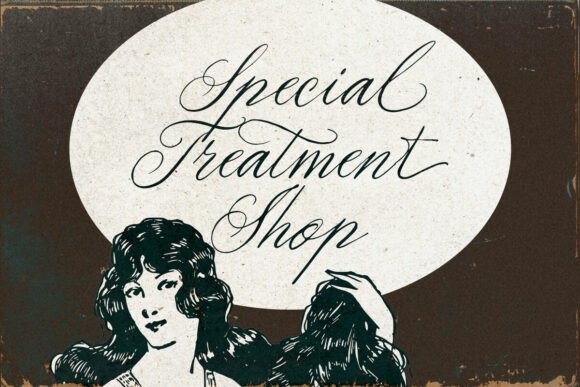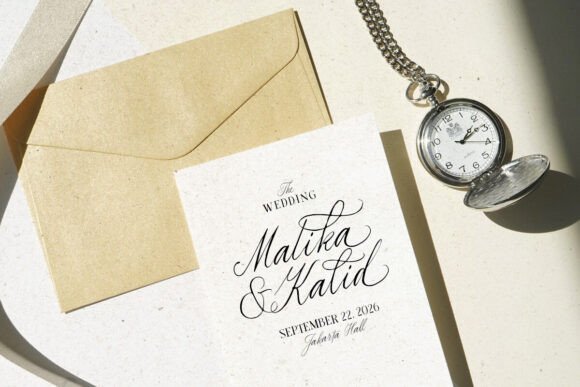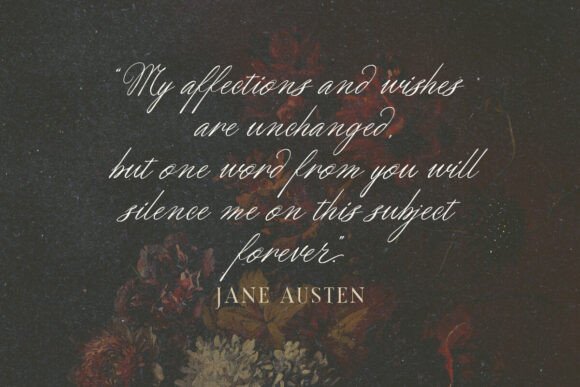
Introduction to Golden Rouge Font
As designers, we’ve all been there – staring at a blank canvas, struggling to find the perfect font to bring our creative vision to life. The moment of clarity arrives when we stumble upon a design resource that speaks to us, and for many, that moment has arrived with the Golden Rouge Font. This stunning typeface is a masterclass in elegance and sophistication, offering a range of stylistic alternates, ligatures, and swashes that transport us to a bygone era.
With its high-quality design, the Golden Rouge Font is a valuable asset for any creative project. Whether you’re crafting a logo, designing a magazine spread, or creating a wedding invitation, this font is sure to add a touch of timeless sophistication. And the best part? It’s available for free download, making it an accessible design resource for designers of all levels.
Key Features of Golden Rouge Font
- High-quality, elegant design perfect for creative projects
- Unique characteristics include intricate details and a luxurious feel, making it perfect for high-end design projects
- Can be used for a wide range of creative projects, including branding, packaging, and editorial design
Honest Review: Golden Rouge Font
I recently had the chance to work with the Golden Rouge Font and I’m excited to share my thoughts. This font has quickly become a design resource I go back to time and time again for high-quality typography in my creative projects.
- ✨ The font’s elegant, cursive design makes it perfect for adding a touch of sophistication to any project.
- ⚠️ The font may not be as versatile for bold, modern designs, as it leans more towards a traditional, elegant look.
- ⚠️ The font may require some tweaking to get the desired level of boldness or italicization.
Overall, I’m really impressed with the Golden Rouge Font. It’s a great addition to any designer’s toolkit and I’ve already used it in several successful creative projects.
The Golden Rouge Font is perfect for creating high-quality designs for a variety of projects, including business cards, brochures, and posters. It’s also great for personal projects, such as creating a custom invitation or a birthday card. With its elegant and sophisticated design, the Golden Rouge Font is a great design resource for any creative project.